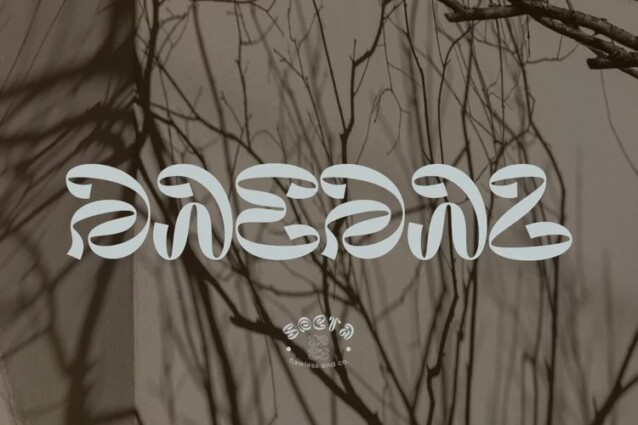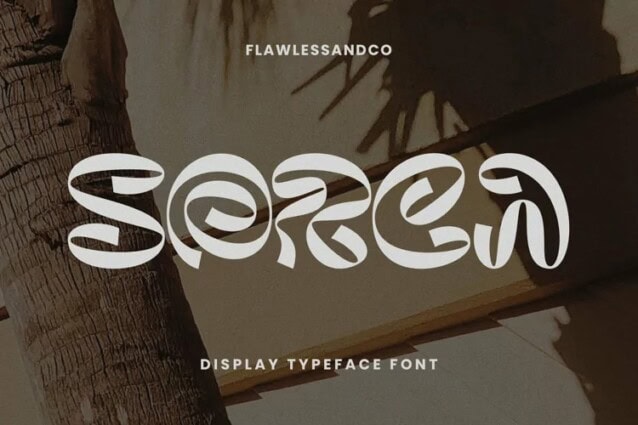
Sorca Font
Sorca Font is a playful decorative display typeface inspired by doodle style and hand-drawn lettering. Dive into the world of sophistication and uniqueness with “Sorca,” a captivating display typeface font that is adorned with wavy and distinctive letter details.
There’s some connected letters and some alternates that suitable for any graphic designs such as branding materials, t-shirt, print, business cards, logo, poster, t-shirt, photography, quotes .etc